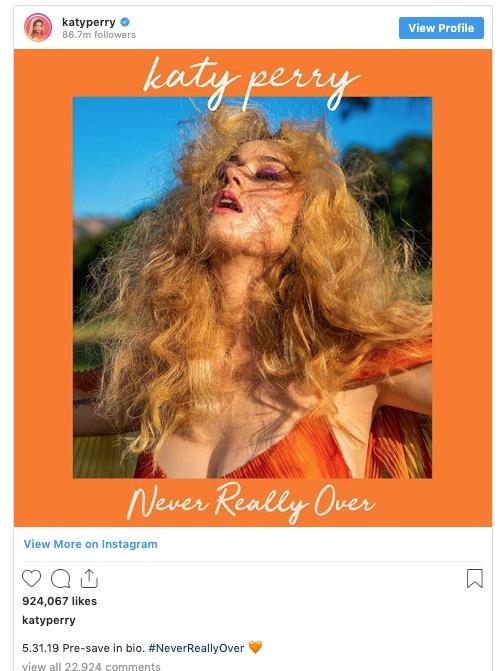
Katy Perry’s Single: Never Really Over – Jelytta Script
Katy Perry is roaring back to solo music with a new single on the way.
The pop icon revealed Tuesday the name of her upcoming song, “Never Really Over,” which is set for release on May 31, 2019.
Perry also unveiled the new tune’s colorful, orange-bordered cover art, which sees the 34-year-old throwing her head back in ecstasy while the locks of her golden wig cascade over her shoulders as she stands in a sun-kissed locale. A flowy orange dress (and purple eyeshadow) complete the look.
This single uses the Jelytta Handwrtitten Script font from Creatype Studio. It looks feminine and elegant according to the character of the singer, Katy Perry.